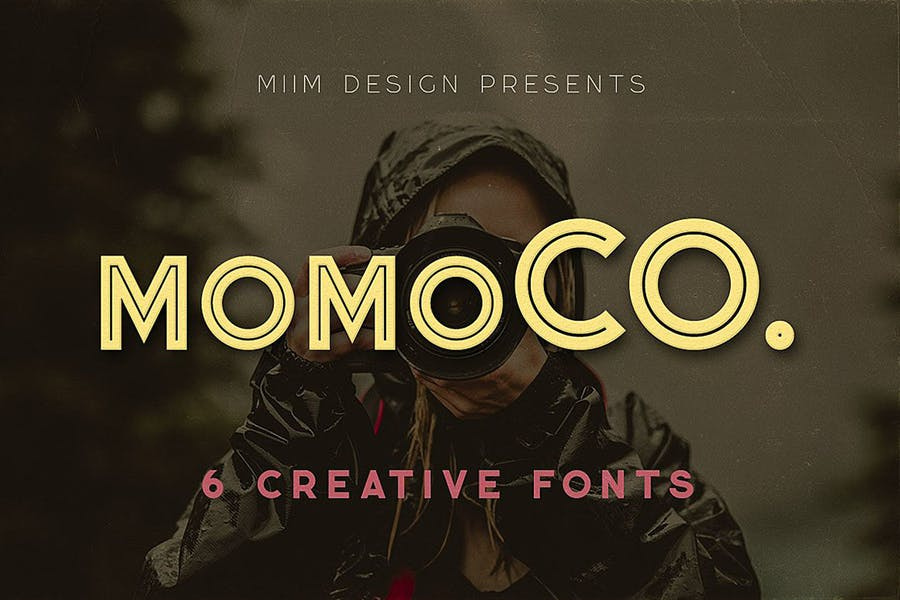
Momoco - Display Font
Momoco - Display Font is perfect for playful children's brands, creative toy packaging, fun educational materials, cheerful daycare signage, whimsical party decorations, animated character designs, colorful gaming interfaces, joyful social media graphics, imaginative playground displays, and delightful family entertainment venues.
Momoco - Display Font creates excitement because it embodies pure joy and childlike wonder with its bouncy, animated letterforms and delightfully playful character design. The font's vibrant energy and whimsical personality instantly bring smiles and happiness, making any brand appear fun-loving and genuinely entertaining. Its carefully crafted playful details and animated character create an immediate sense of childhood magic that captivates audiences seeking joyful experiences, imaginative products, and brands that celebrate the wonderful spirit of play and endless creativity that makes life truly delightful.
The Momoco - Display Font family includes multiple weights and styles: Regular, Bold, Light, Medium, Italic, Condensed, Extended, Bouncy, Playful, and Animated versions. Each variant maintains the font's signature joyful character while offering different levels of playfulness and whimsical styling suitable for various children-focused and entertainment applications.